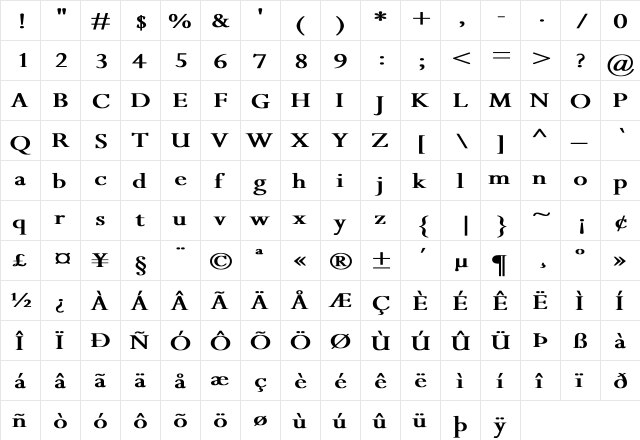
Perpetua Wd Bold Bold Font Preview
Perpetua Wd Bold Bold
Design Context for Perpetua Wd Bold Typeface
Perpetua Wd Bold is a composed and adaptable typeface that performs quietly and consistently across a wide range of design contexts. The heavy weight commands attention and anchors typographic hierarchies.